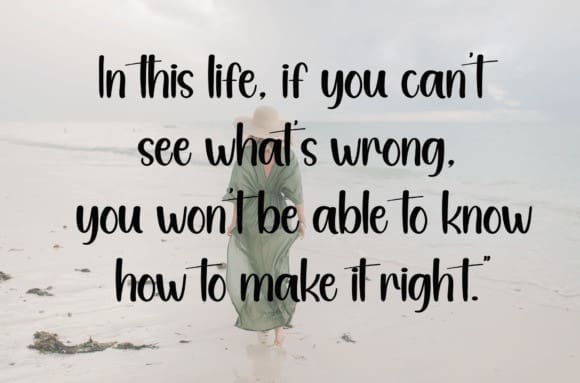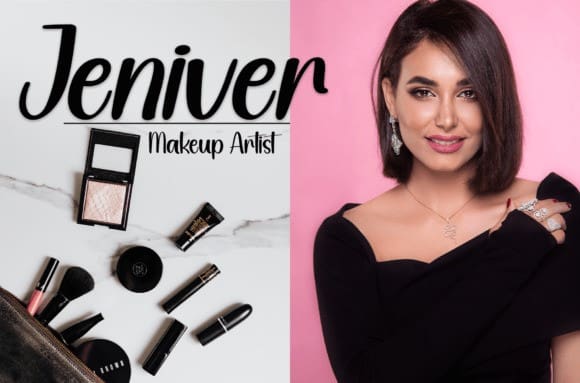
Grandson Font
Grandson Font is a sweet and friendly handwritten font. Fresh and neat, this font is ideal for writing wedding invitations, cards, or any other design that might need a fun touch!